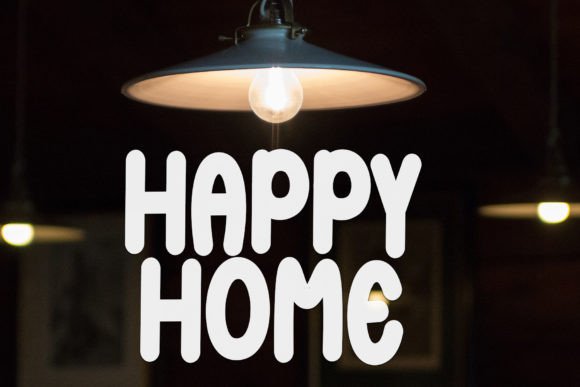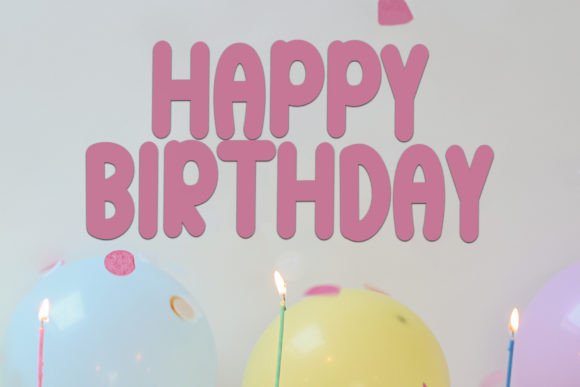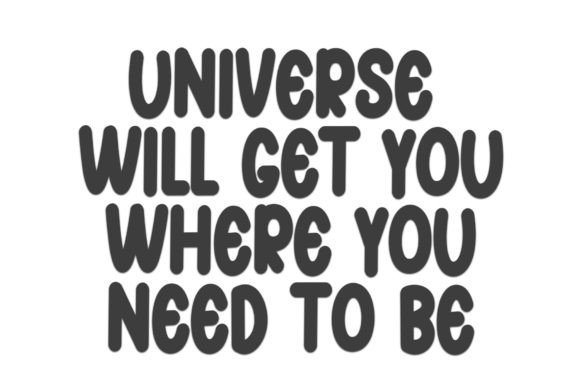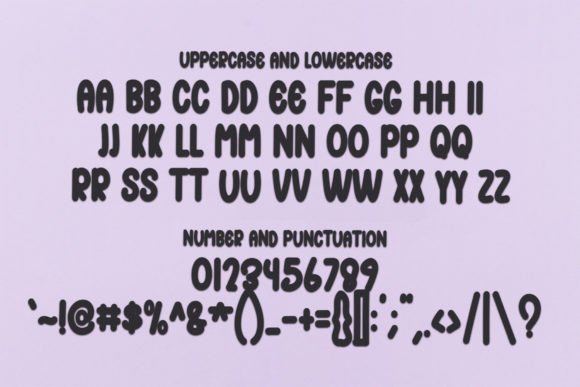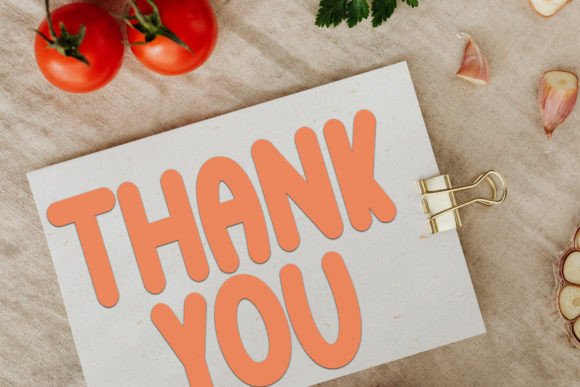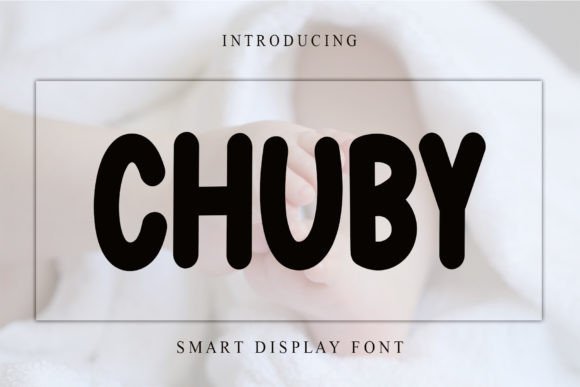
Introducing Chuby Font: The Perfect Casual Handwritten Font for Your Designs
Are you looking for a font that can add a touch of warmth and friendliness to your designs? Look no further than Chuby Font! This casual handwritten font is perfect for designers and crafters who want to create personal and approachable designs that resonate with their audience. In this article, we’ll dive into the features and benefits of Chuby Font, and explore how you can use it to elevate your designs.
The Characteristics of Chuby Font
Chuby Font is a beautifully crafted handwritten font that boasts rounded, playful strokes that give off a relaxed and approachable feel. Its charming, hand-drawn aesthetic adds a delightful, whimsical touch to any design, making it perfect for a variety of applications. Whether you’re working on a personal project, creating invitations, or designing social media graphics, Chuby Font is sure to bring a smile to your audience’s face.
The Benefits of Using Chuby Font
So, why choose Chuby Font for your designs? Here are just a few benefits of using this lovely font:
• Warmth and Friendliness: Chuby Font exudes a sense of warmth and friendliness that’s hard to find in other fonts. Its casual, handwritten aesthetic makes it perfect for designs that need to feel approachable and relatable.
• Versatility: Chuby Font is incredibly versatile, making it suitable for a wide range of design applications. From personal projects to commercial designs, this font can be used in a variety of contexts.
• Easy to Read: Despite its playful aesthetic, Chuby Font is incredibly easy to read, making it perfect for designs that need to communicate a message clearly.
Using Chuby Font in Your Designs
So, how can you use Chuby Font in your designs? Here are a few ideas to get you started:
• Personal Projects: Chuby Font is perfect for personal projects, such as scrapbooking, journaling, and crafting. Its casual aesthetic makes it feel like a personal and intimate part of your design.
• Invitations: Whether you’re planning a wedding, birthday party, or baby shower, Chuby Font is a great choice for invitations. Its playful aesthetic sets the tone for a fun and celebratory event.
• Social Media Graphics: Chuby Font is also perfect for social media graphics, such as Instagram posts, Facebook updates, and Twitter headers. Its friendly aesthetic helps to create a connection with your audience.
Tips for Pairing Chuby Font with Other Fonts
When pairing Chuby Font with other fonts, here are a few tips to keep in mind:
• Contrast with a Serif Font: Pair Chuby Font with a serif font, such as Times New Roman or Georgia, to create a beautiful contrast between the playful, handwritten aesthetic of Chuby and the classic, traditional feel of the serif font.
• Match with a Script Font: If you want to create a cohesive look, try pairing Chuby Font with another script font that has a similar feel. This will help to create a sense of continuity in your design.
In conclusion, Chuby Font is a beautiful and versatile casual handwritten font that’s perfect for designers and crafters who want to add a touch of warmth and friendliness to their designs. Its rounded, playful strokes and charming, hand-drawn aesthetic make it perfect for a variety of applications, from personal projects to commercial designs. Whether you’re a seasoned designer or just starting out, Chuby Font is a great addition to your font library.